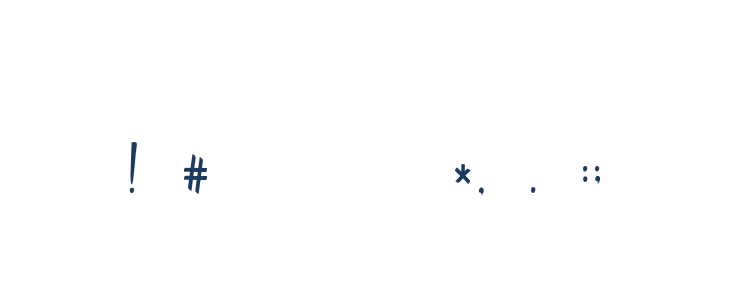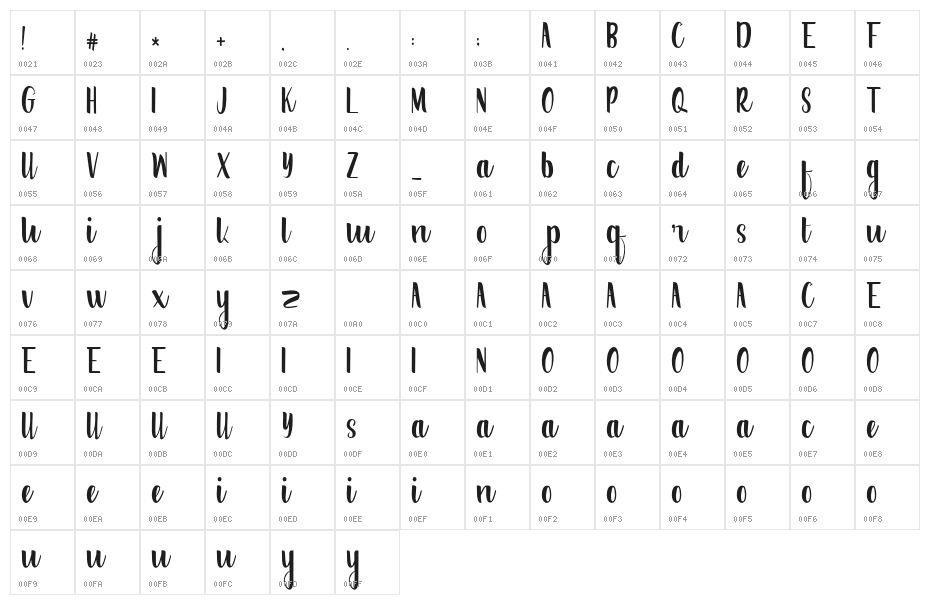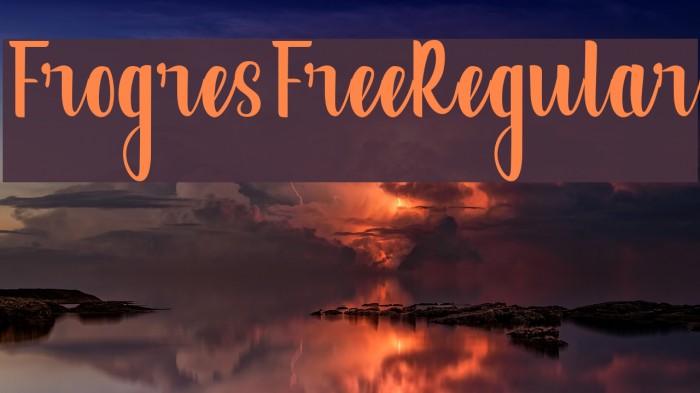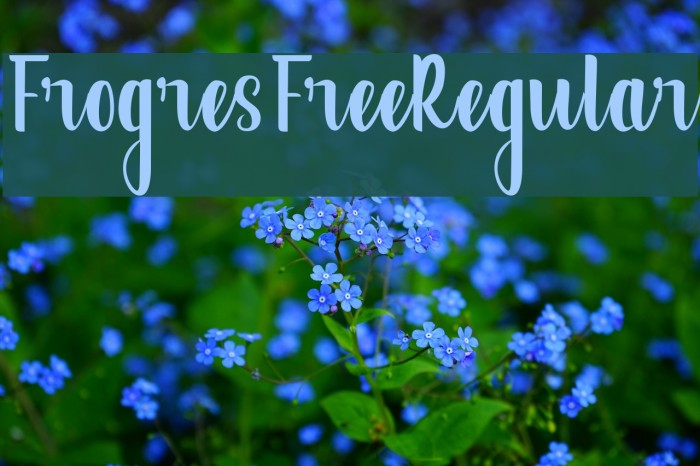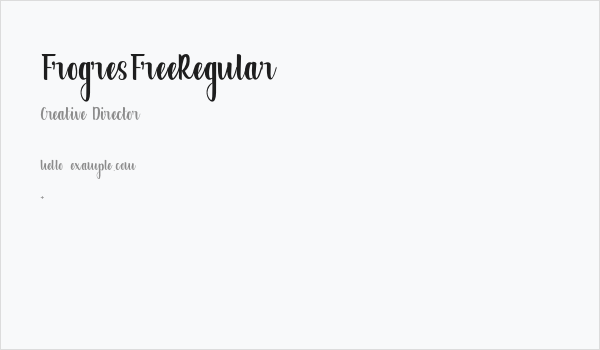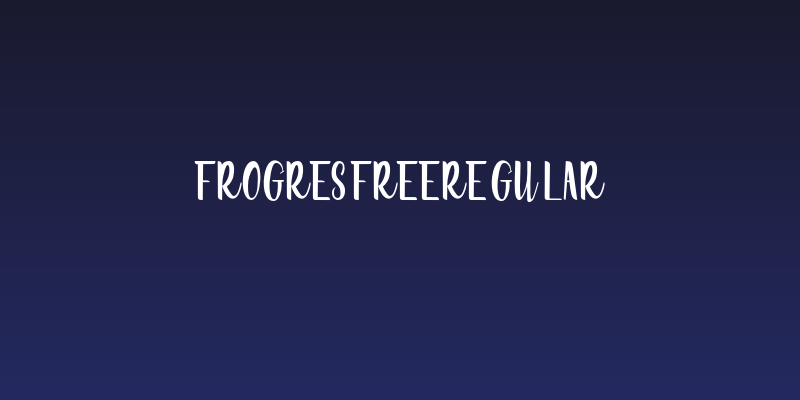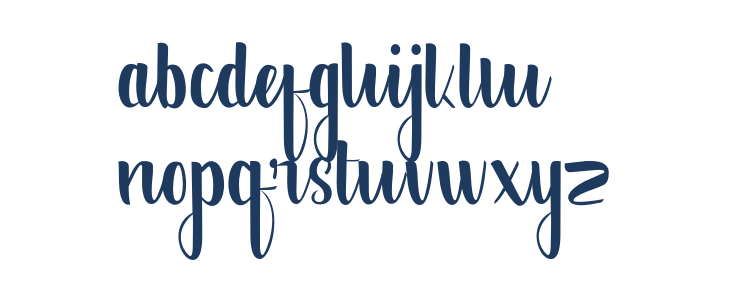
FrogresFreeRegular Font
FrogresFreeRegular Description
This font features a playful and dynamic style with a handwritten feel. The uppercase letters are bold and slightly condensed, with a whimsical flair that adds character to each letter. The lowercase letters maintain a consistent flow, with some letters featuring unique loops and curves that enhance the font's lively appearance. The numbers are clear and easy to read, matching the overall style of the alphabet. Special characters are creatively designed, adding to the font's versatility. This font is perfect for projects that require a touch of fun and creativity.